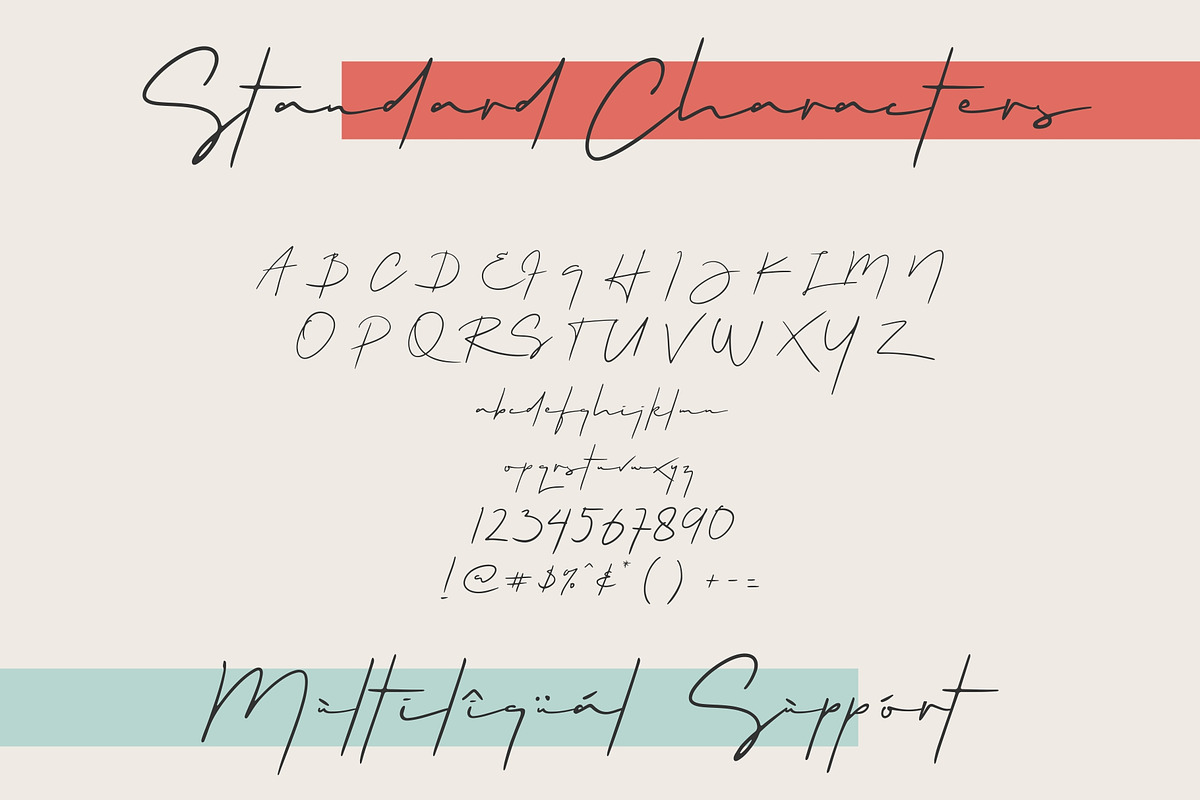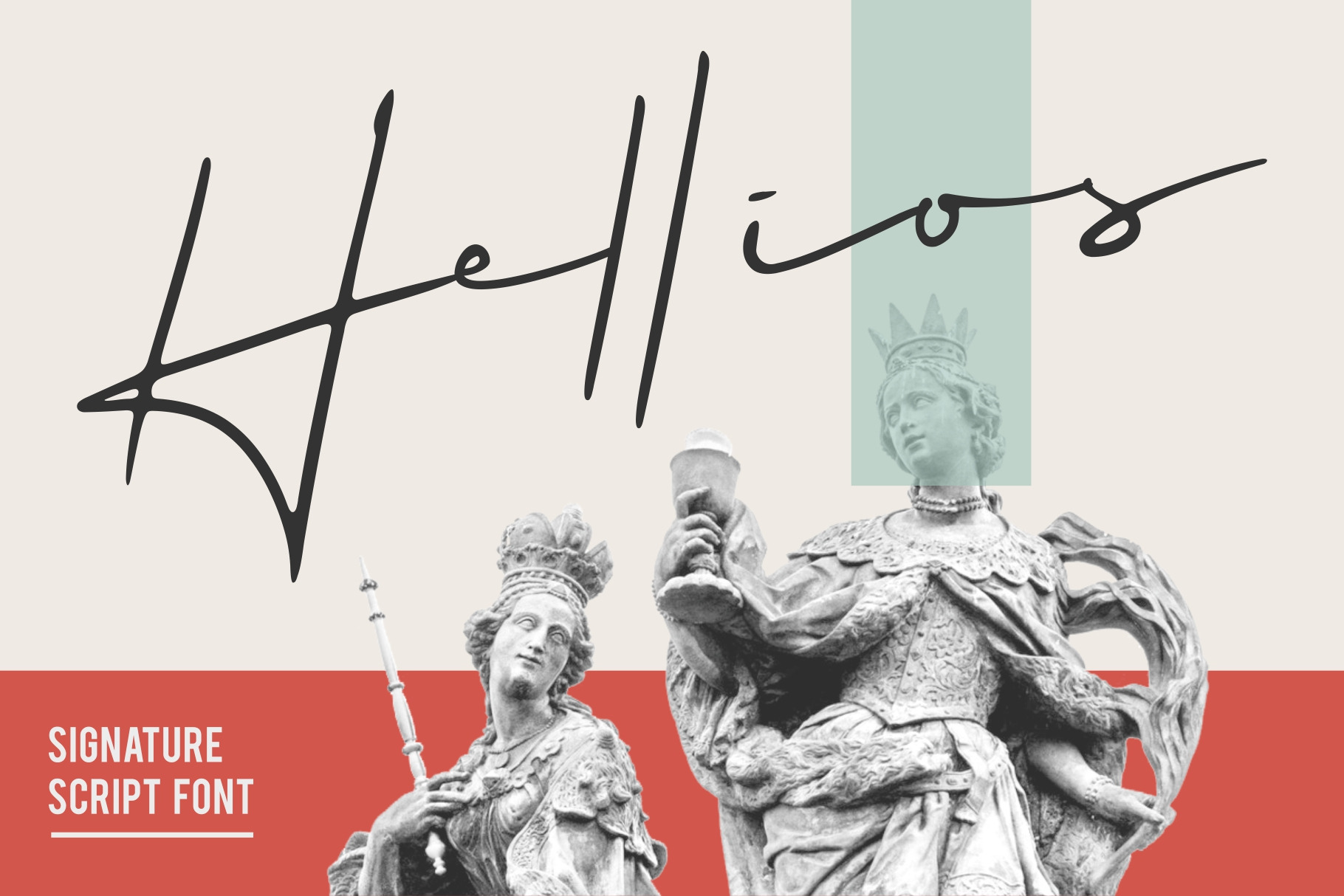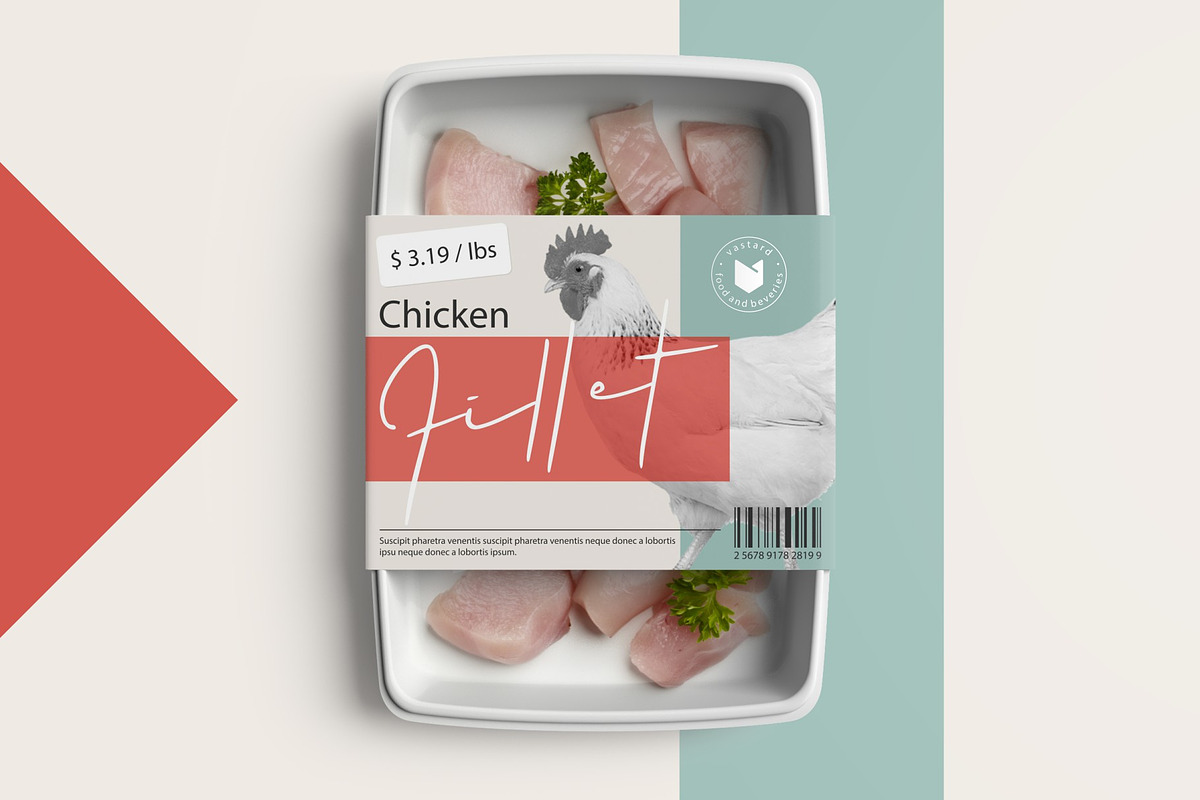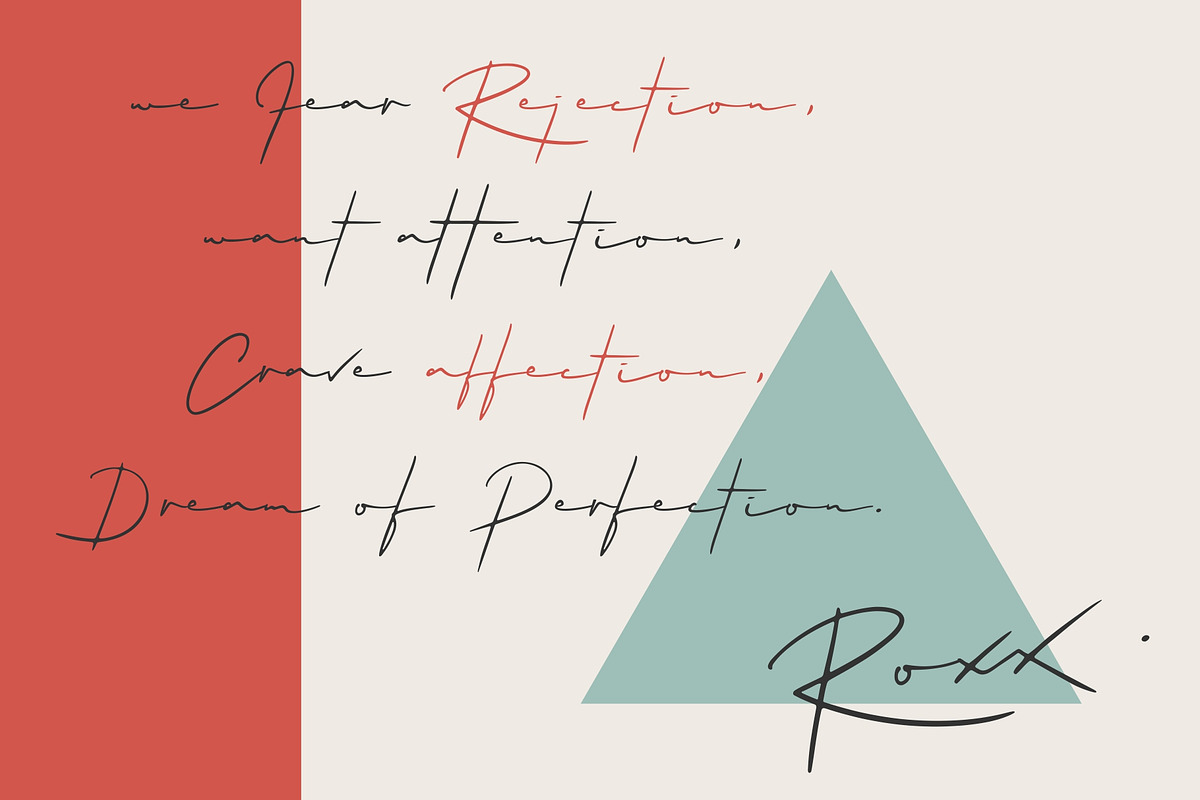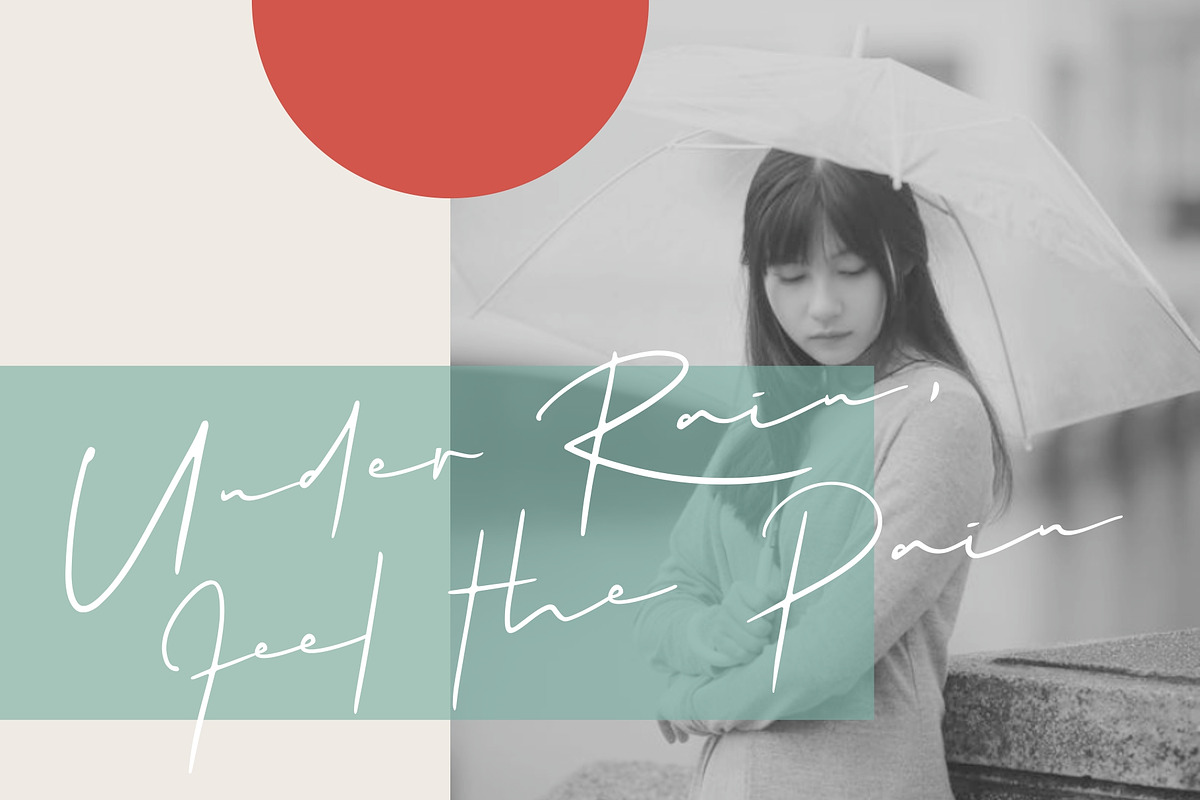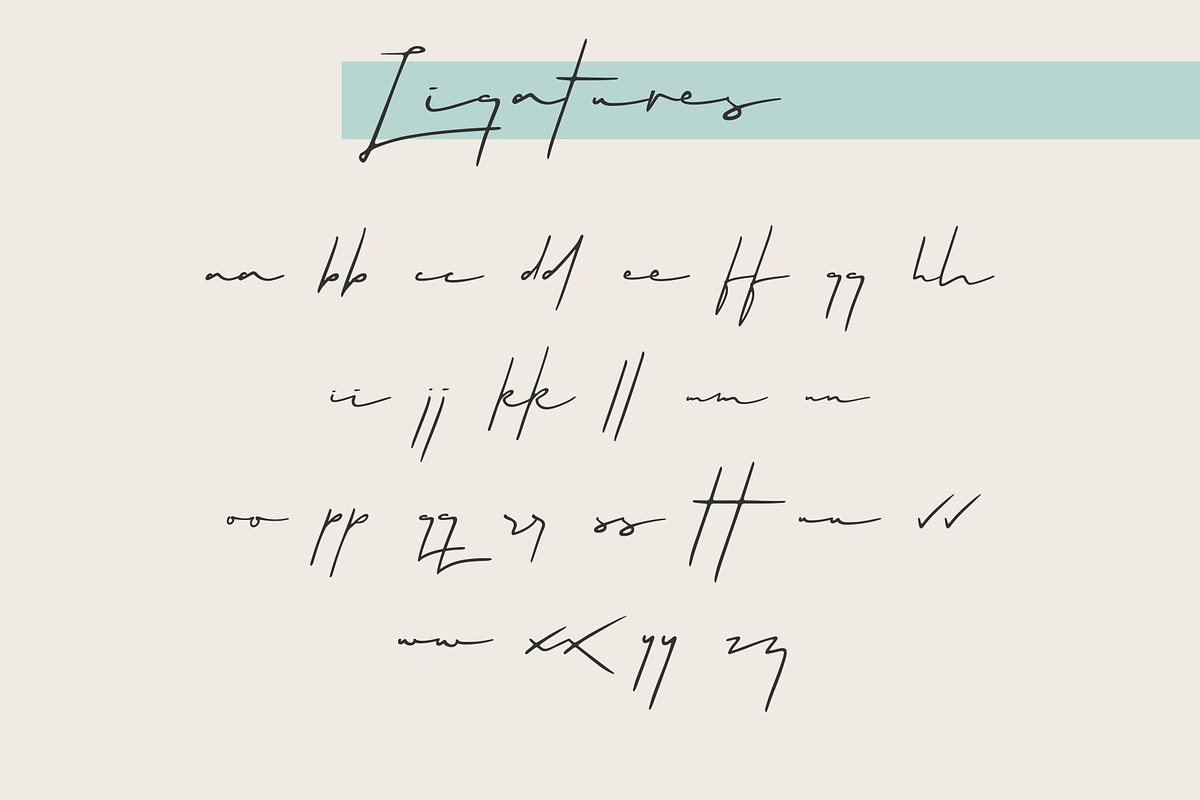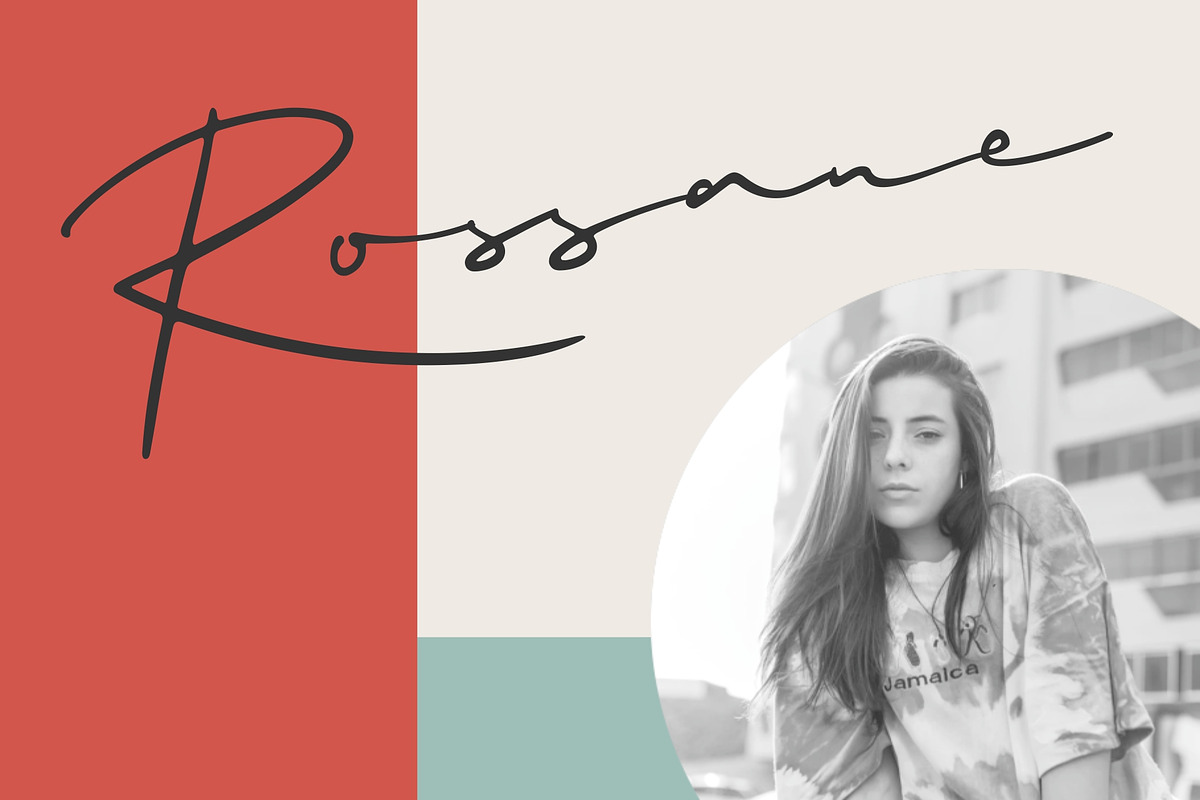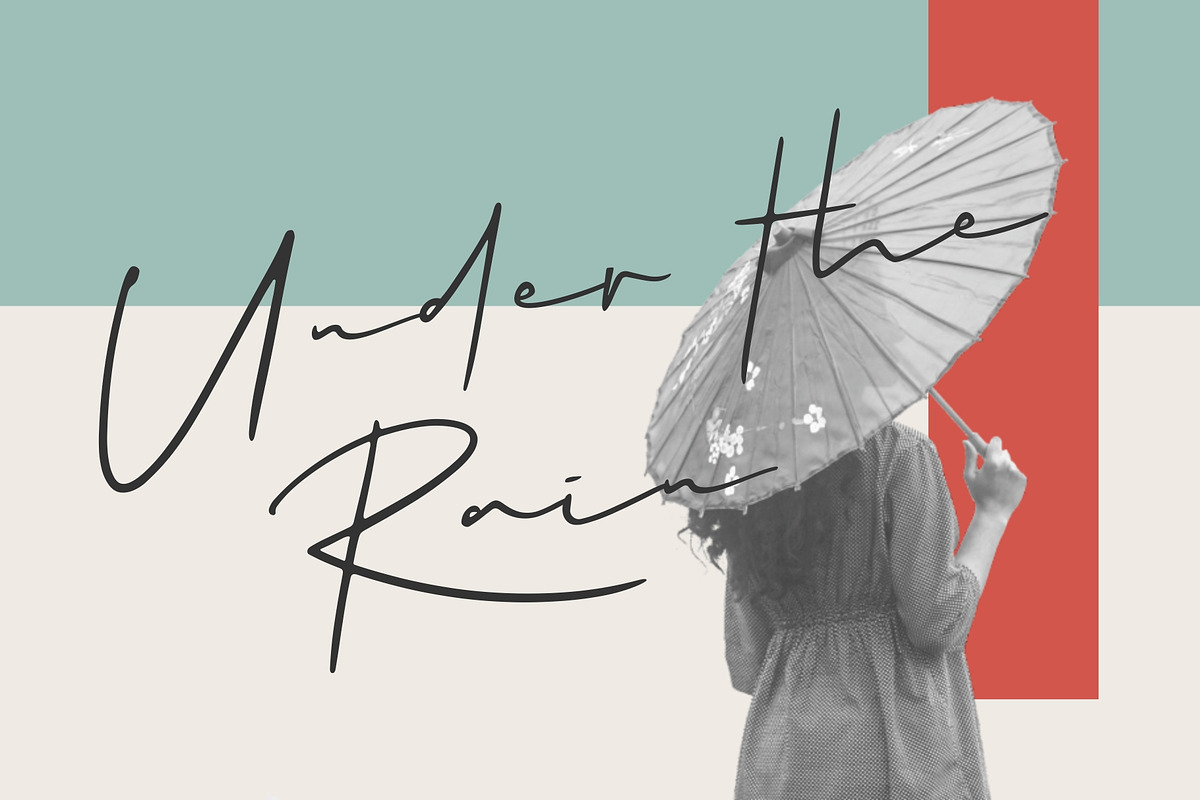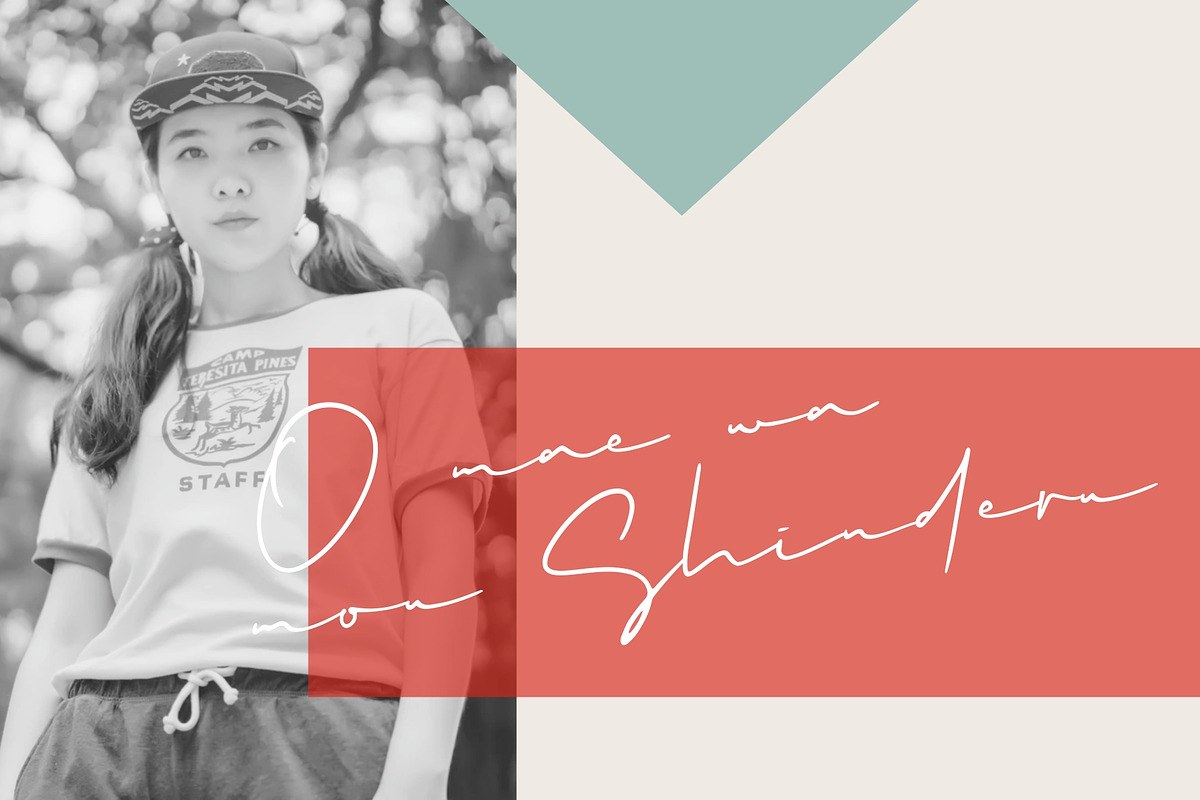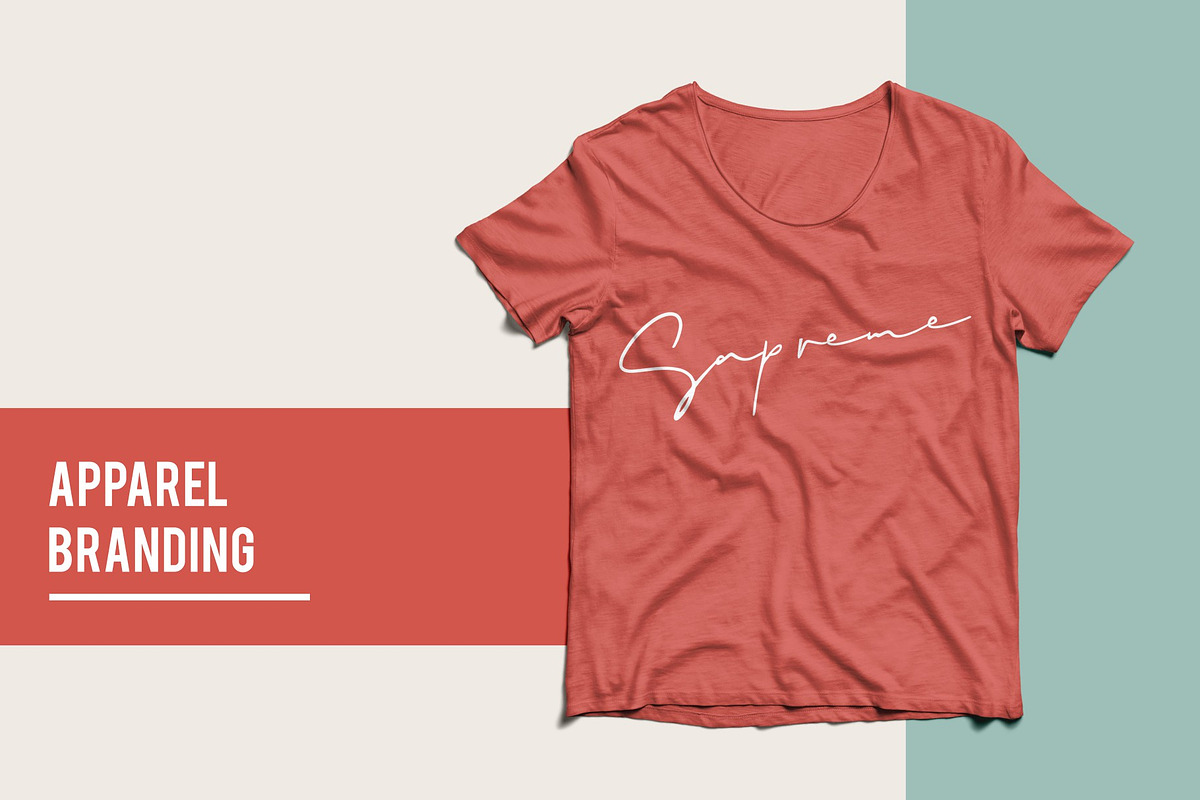
Hellios Signature Font
Hellios Signature Font is a Handwritten Script Font With a natural effect of an ink. It has multipurpose value such as digital signature, Branding, Email signature, Quote, and much more.
- 25 Ligatures (see preview)